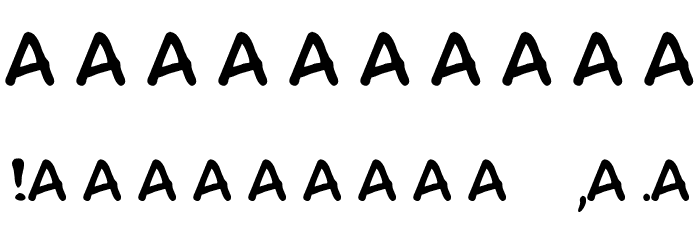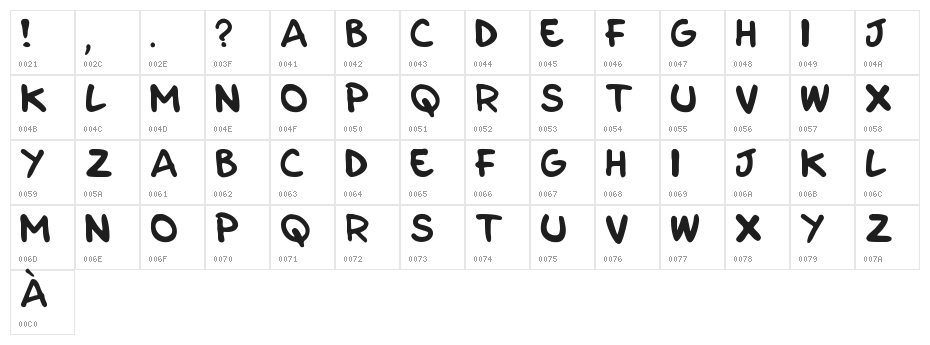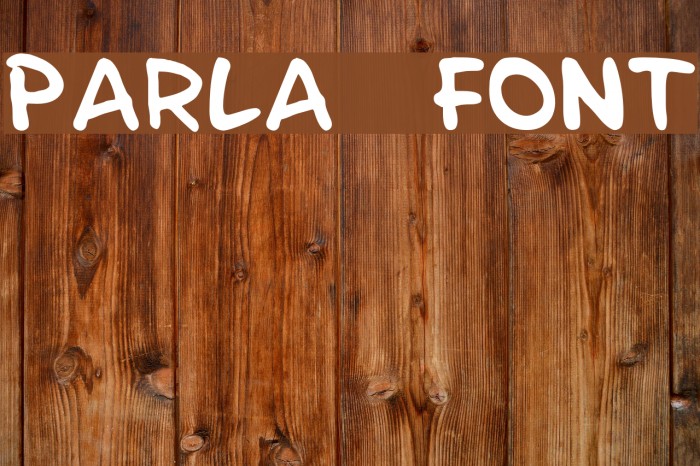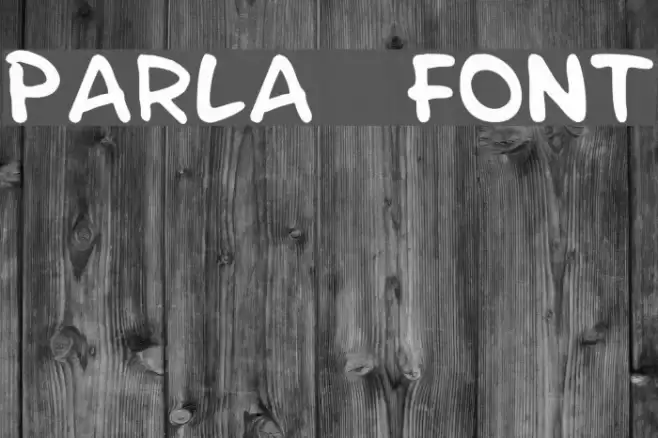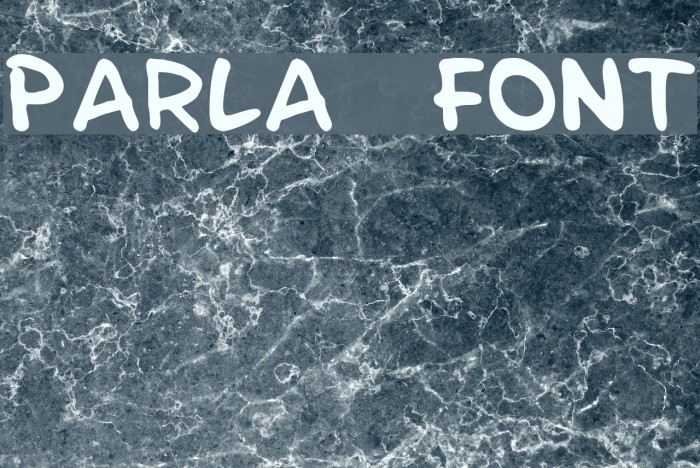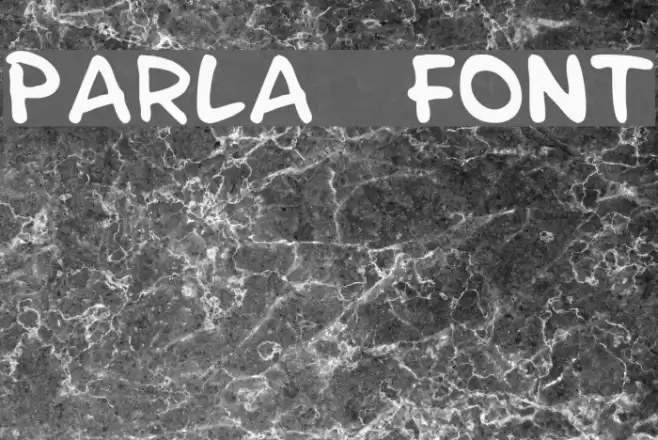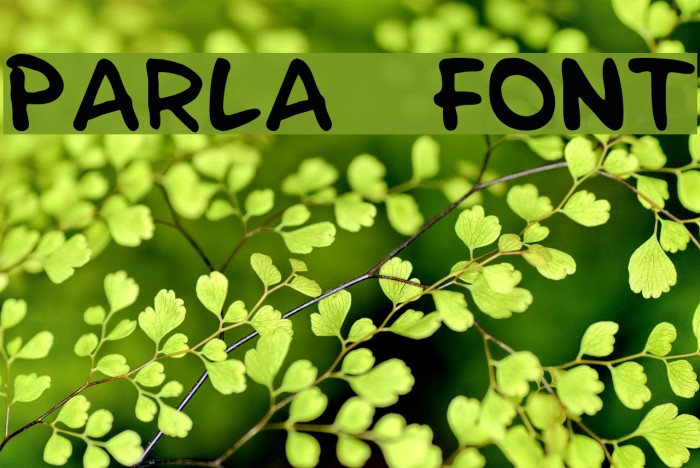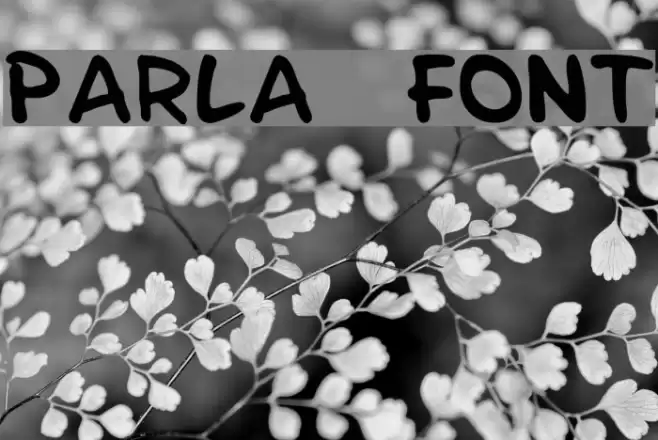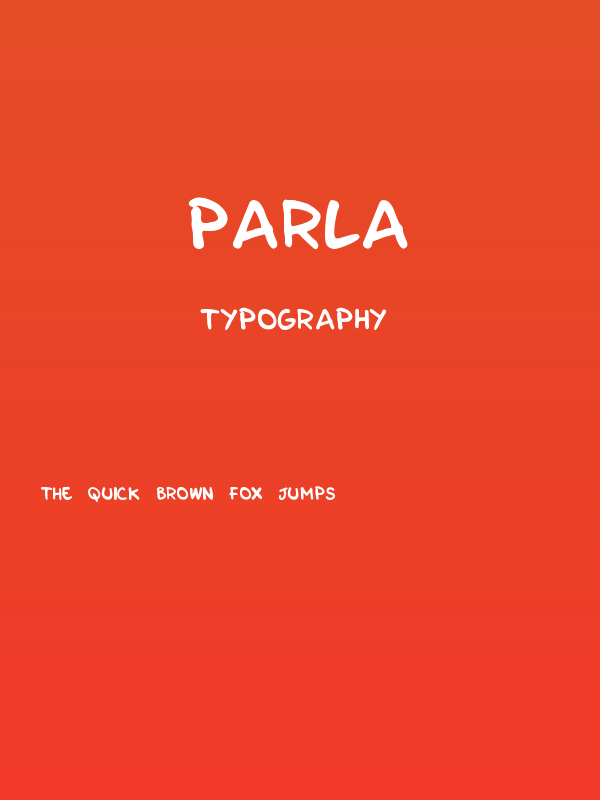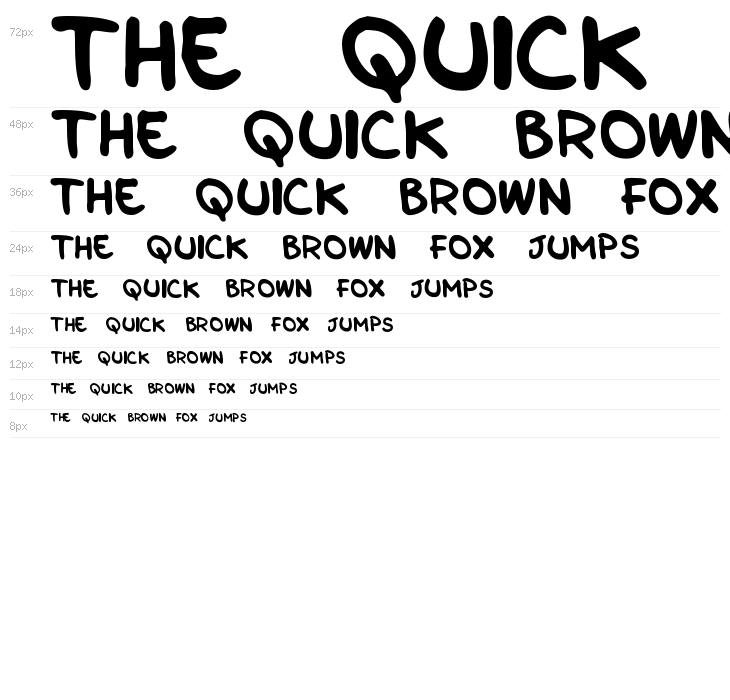
Parla Font
Parla Description
This playful and bold font features a handwritten style with a casual, friendly appearance. The characters are rounded and slightly irregular, giving it a whimsical and approachable feel. The strokes are thick and consistent, providing a strong presence on the page. This font is highly legible and maintains a uniform weight throughout, making it suitable for various design applications. The spacing between characters is moderate, ensuring readability while maintaining its distinctive style. Its unique charm makes it ideal for projects that require a personal touch or a fun, informal vibe.